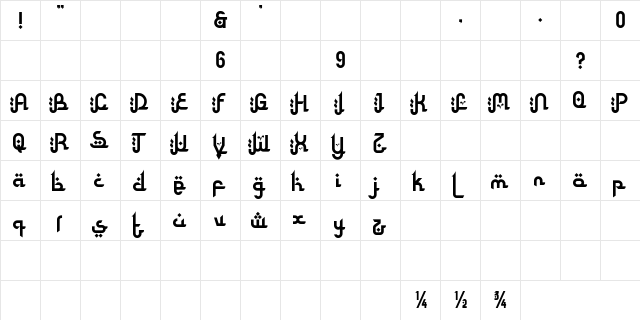
Kahfi Regular
Regular ·  Nur Faidin (Nurf Designs) Banten Indonesia ·
DesignerNur Faidin (Nurf Designs) Banten Indonesia
Design Context for Kahfi Typeface
Kahfi is a composed and adaptable typeface that performs quietly and consistently across a wide range of design contexts.